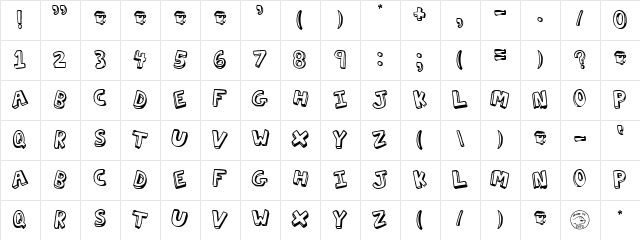
Action Jackson Regular
Foundry: [Divide By Zero] Fonts
Designer: Tom Murphy 7
Design Context for Action Jackson
Action Jackson is a composed and adaptable typeface that performs quietly and consistently across a wide range of design contexts.
Pro Tip: Use Action Jackson in both headline and body roles to test its range before committing to a single application.